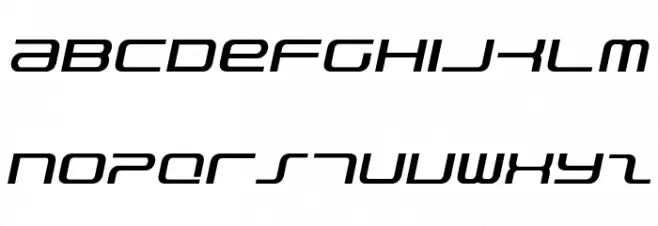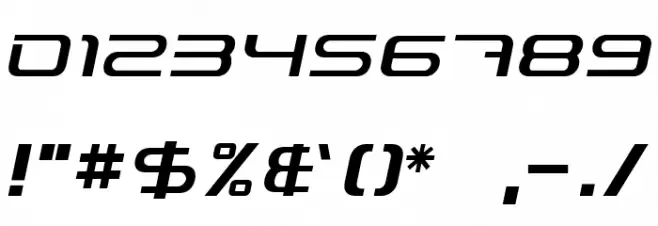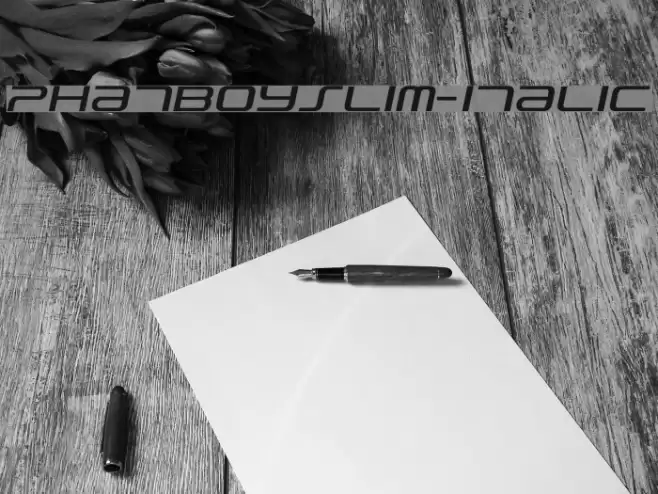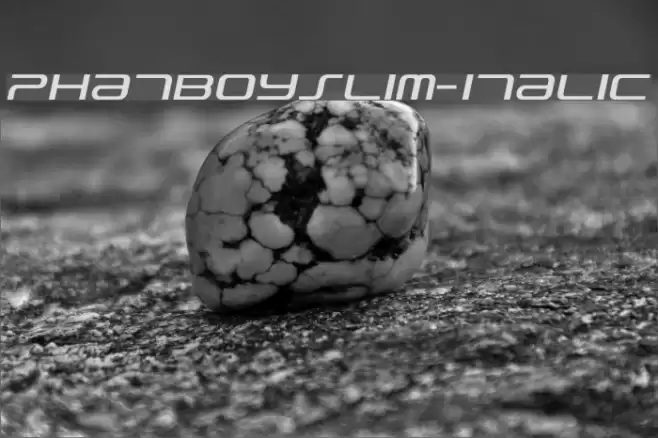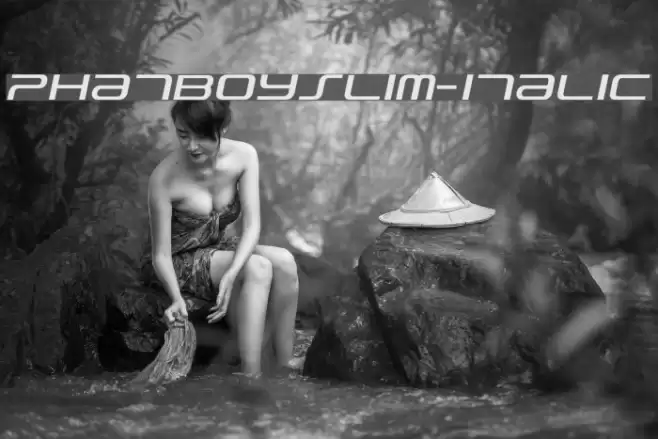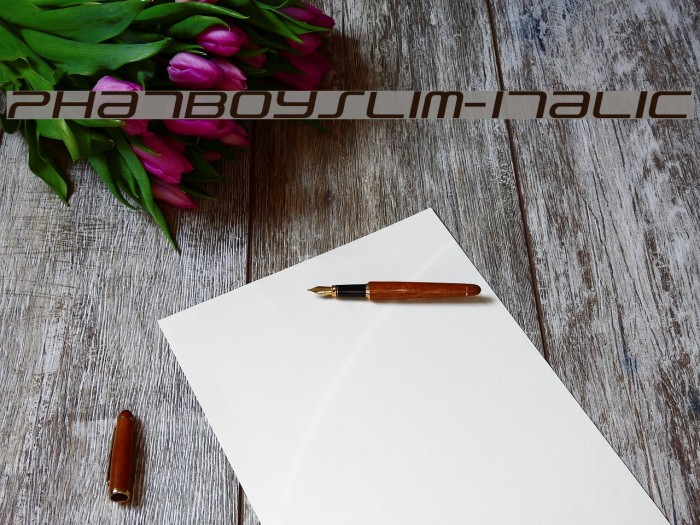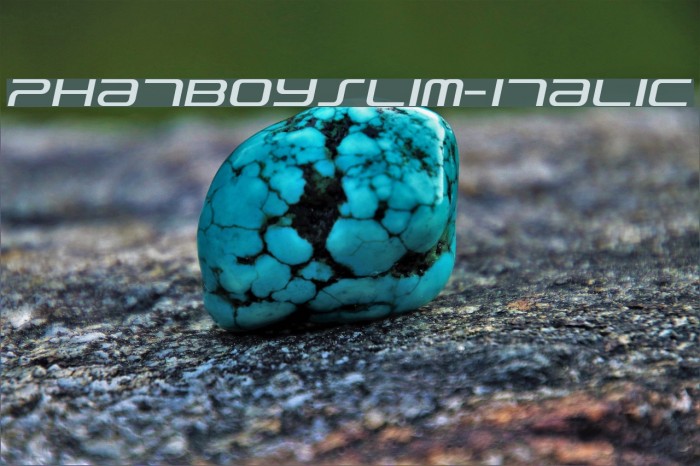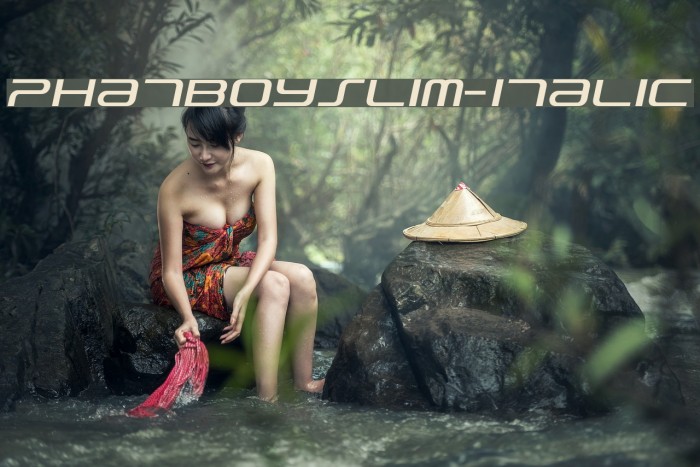
PhatBoySlim-Italic
This font features a sleek, modern design with a futuristic flair. The characters are slightly italicized, giving a sense of motion and speed. The strokes are consistent in thickness, providing a uniform appearance across all characters. The design incorporates rounded edges and smooth curves, which contribute to its contemporary aesthetic. The numerals and special characters maintain the same stylistic elements, ensuring cohesion throughout. This font is ideal for projects that require a modern and dynamic look, such as technology branding, sports team logos, or automotive advertisements.
A sleek, modern italic font with a futuristic design.
- Proposed Projects: Ideal for technology branding, sports logos, automotive ads, and modern web design.
- Use Case: Logos, Headlines, Branding